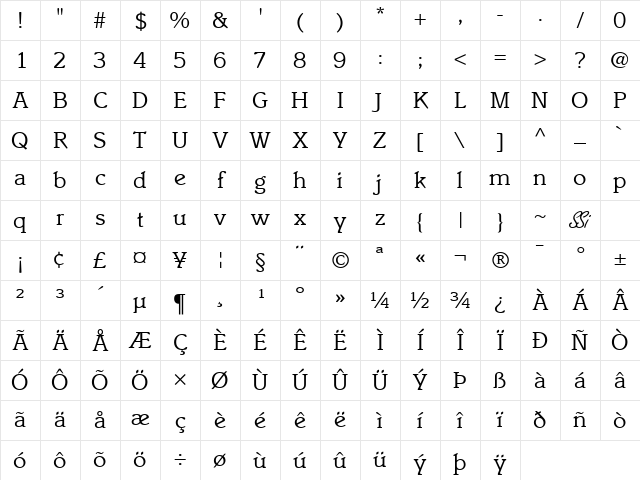
Ensemble SSi Regular
Ensemble SSi Family
Design Context for Ensemble SSi
Ensemble SSi is a composed and adaptable typeface that performs quietly and consistently across a wide range of design contexts.